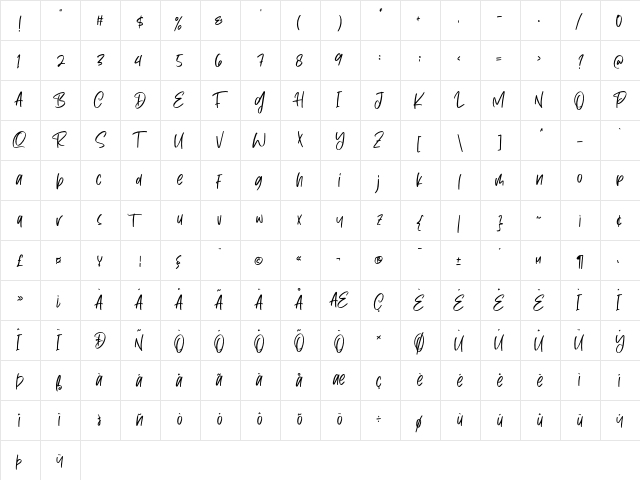
Dark Phoenix Regular
| Foundry | Stringlab |
| Designer | Stringlab |
Design Context for Dark Phoenix Typeface
Dark Phoenix is a composed and adaptable typeface that performs quietly and consistently across a wide range of design contexts.